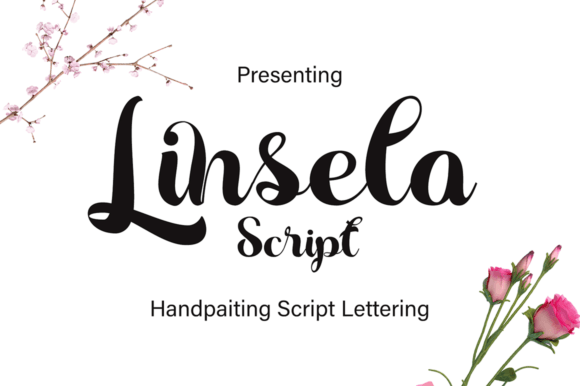
How Linsela Script Gave My Small Business a Fresh, Professional Look
It all started when I decided to refresh the labels for my small candle-making business. I had been using the same basic fonts for years, and while they got the job done, something was missing. The labels looked okay, but not quite “me.” I wanted something that felt more personal, more intentional—something that reflected the care I put into every candle.
That’s when I discovered Linsela Script. At first glance, it looked like the kind of handwriting you might see in a beautifully handwritten note. It has that soft, flowing quality of real calligraphy, but with a modern twist. The ink-like strokes and fantasy-style glyphs give it a unique personality that’s both elegant and approachable. It didn’t feel too formal or too casual—it was just right.
From Labels to Logos: A Font That Works Hard
I started by using Linsela Script for my candle jar labels. I swapped out the generic sans serif font for Linsela’s elegant curves, and the difference was immediate. The product felt more premium, like something you’d find in a boutique rather than a generic store. Customers started complimenting the packaging, which was a first.
Encouraged by the response, I began using the font in other areas of my brand. I redesigned my logo with Linsela as the main typeface, and it gave my brand a cohesive identity. I used it on thank-you cards, social media graphics, and even printed menus for a local café that started carrying my candles. It worked beautifully across different mediums—whether it was on a small sticker or a large banner.
Why Typography Matters for Small Businesses
Before this experience, I never realized how much typography could impact a brand. But the truth is, fonts are like the voice of your business. They speak to your audience before a single word is read. A clean, well-chosen font like Linsela Script can make your brand feel more trustworthy, professional, and memorable.
For small businesses, where every detail counts, typography can be the difference between looking like an amateur and looking like a polished brand. Linsela Script helped me bridge that gap. It’s not just a font—it’s a design tool that elevates everything it touches.
Where Linsela Script Shines
Linsela Script works best in display settings—logos, headlines, packaging titles, and decorative accents. It’s not ideal for long paragraphs, but it shines in short, impactful phrases. I used it for product names on my packaging and for headings on my website. It also looks great on social media graphics, especially for quotes or promotional text that needs to stand out.
One of my favorite uses was on a set of custom stickers I made for packaging. The fantasy-style glyphs added a whimsical touch that customers loved. Whether it was a small “Handmade with Love” tag or a seasonal promotion, Linsela Script made every detail feel special.
Readability Tips for Real-World Use
While Linsela Script is stunning, I learned that readability matters—especially on small labels or mobile screens. I found that using it at a slightly larger size or in high-contrast colors helped maintain clarity. For printed packaging, I made sure to test the font at actual size before printing to avoid any surprises.
When designing for digital use, like Instagram stories or website banners, I paired it with a clean sans serif for body text. This ensured that the overall design was both beautiful and easy to read. It’s a small detail, but one that makes a big difference in how customers interact with your brand.
Pairing Linsela Script with Other Fonts
Font pairing is essential for creating visual hierarchy and balance. Linsela Script pairs beautifully with a variety of styles. I found that a minimalist sans serif like Montserrat or Open Sans worked well for supporting text, giving the design a modern, clean feel.
If I wanted to go for a more elegant look, I used a serif font like Playfair Display. For a playful, hand-crafted vibe, I sometimes paired Linsela with another handwritten font, but only in small doses to avoid visual clutter. The key is contrast—letting Linsela be the star while keeping the supporting fonts simple and functional.
What to Check Before Using Linsela Script
I also made sure to download the full package, which included multiple file formats, alternates, ligatures, and multilingual support. This gave me flexibility in how I used the font—especially helpful when designing for different languages or custom client work.
Real Business, Real Results
Switching to Linsela Script wasn’t a huge investment, but the impact was undeniable. My packaging looked more cohesive, my social media posts felt more intentional, and my logo finally felt like it represented who I was as a business owner.
I didn’t see overnight success, but I did notice more engagement, more compliments on my visuals, and a stronger sense of brand identity. That’s what good typography does—it quietly builds trust, one beautifully designed label at a time.